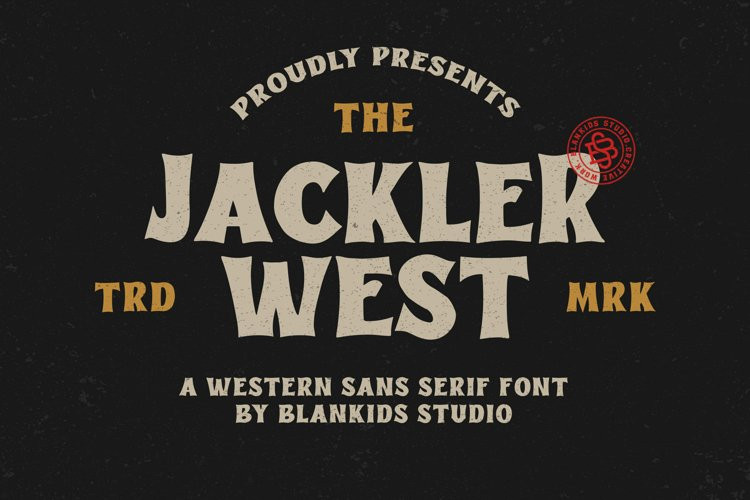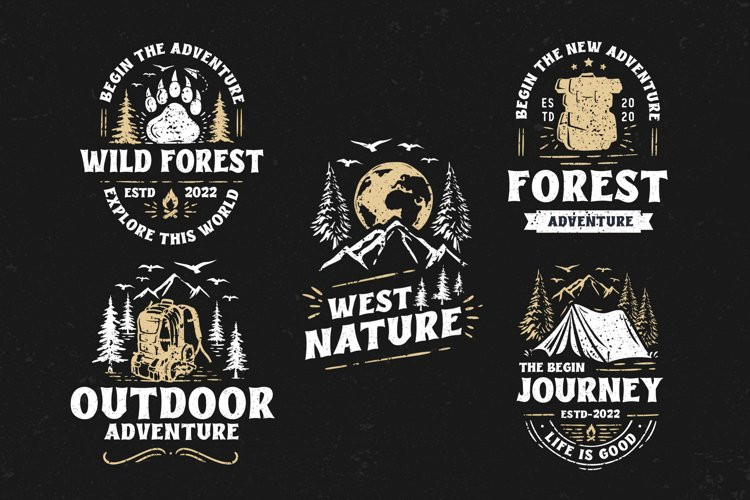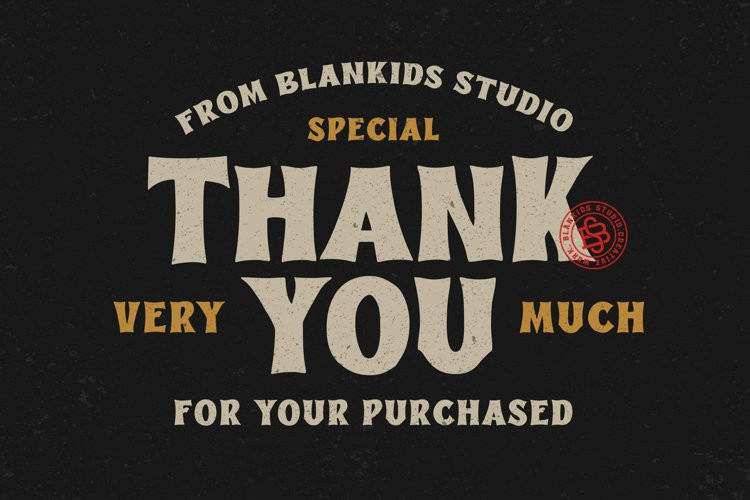
Jackler West Font
Jackler West FontJackler West a Western Sans Serif Font, Inspiring from vintage playful style typography. This font is perfect for a design that makes it more attractive and playful. made with a very good level of aesthetics making this font suitable for book cover, poster, packging, merchandise, logotype and much more.